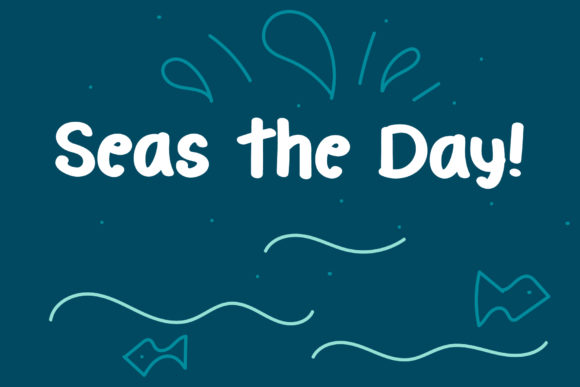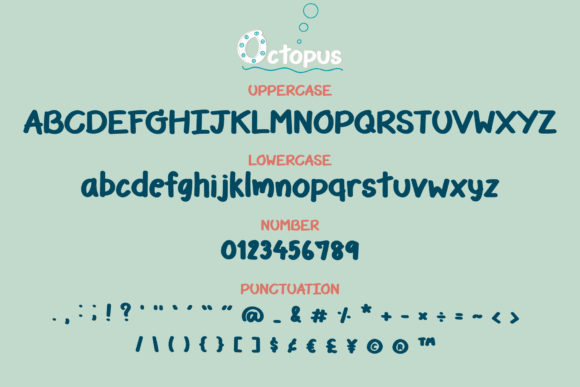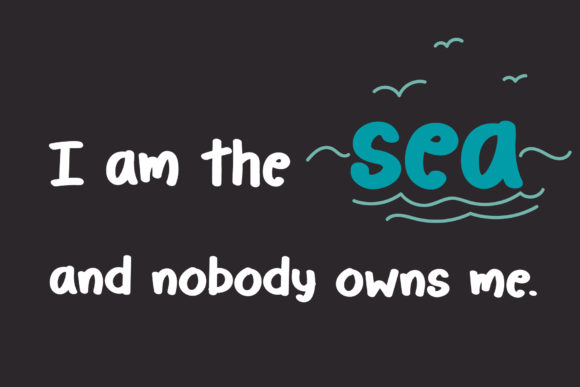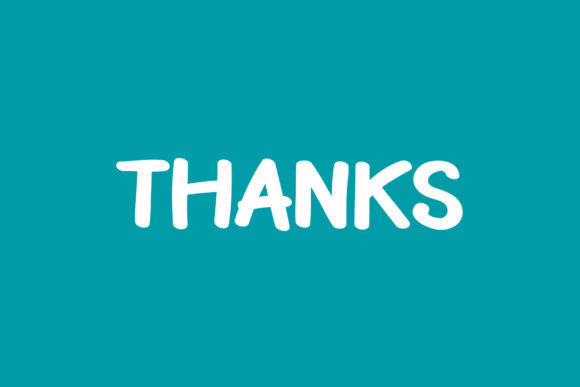
Introduction to Octopus Font
Have you ever found yourself staring at a blank page, trying to decide on the perfect font to bring your creative project to life? The search can be overwhelming, but what if I told you that you’ve just stumbled upon the perfect solution? The Octopus Font is a charming, handwritten font that’s sure to make your design shine.
With its casual, down-to-earth charm, the Octopus Font is the perfect choice for designers looking to add a touch of personality to their work. Whether you’re working on a high-quality brochure or creating a social media post, this font is incredibly versatile and can be used in a variety of contexts, from busy backgrounds to standalone headlines.
What makes the Octopus Font truly valuable is its ability to be easily read on even the most transparent of backgrounds. Plus, it’s available as a free download, making it an invaluable resource for designers of all levels.
Key Features of Octopus Font
- High-quality vector font design suitable for various creative projects, including logos, branding, and digital art.
- Unique, hand-drawn style with a playful and whimsical feel, perfect for adding a touch of personality to any design project.
Honest Review: Octopus Font
I recently stumbled upon the Octopus Font and I’m excited to share my thoughts with you. This creative project offers a unique and versatile design resource that can elevate your next design project.
The Octopus Font is available for free download, which is a huge plus for designers on a budget. The high-quality design is evident in every detail, from the smooth curves to the intricate textures. I particularly appreciate the transparent background option, which makes it easy to overlay on any image or background.
- Unique and creative design
- High-quality design elements
- Some of the design elements may not be suitable for small-scale designs
Overall, I’m impressed with the Octopus Font and I would definitely recommend it to designers looking for a unique and high-quality design resource. With a little creativity, the possibilities are endless!
The Octopus Font is a high-quality, versatile design resource ideal for creative projects that demand a unique touch. With its transparent background, this font is perfect for overlaying text onto images or using as a standalone element in your design.
Tips for Getting the Most Out of the Octopus Font
To get the most out of the Octopus Font, experiment with different font sizes, colors, and combinations to find the perfect look for your project.
Common Use Cases for the Octopus Font
The Octopus Font is ideal for a variety of projects, including:
- Graphic design and visual identity
- Infographics and data visualization